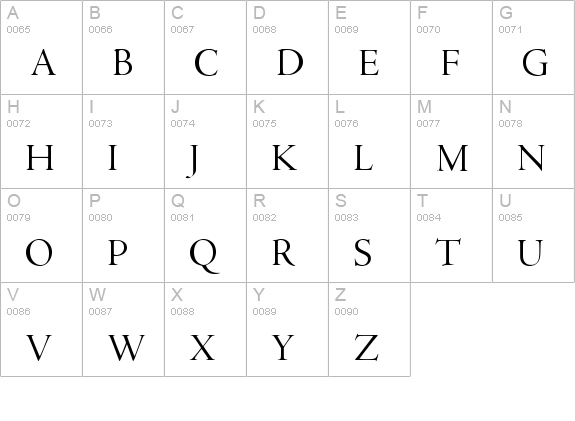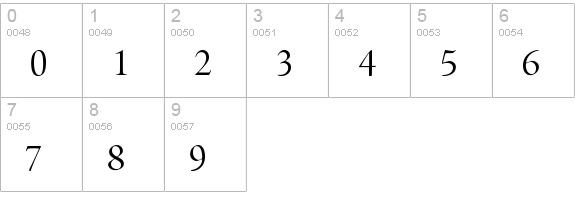
Adobe Jenson Pro Display Font Details
Adobe Jenson Pro Display font is a classic and elegant typeface designed for stunning display use. With its timeless serifs and refined letterforms, this font exudes sophistication and professionalism. Perfect for headlines, titles, and other large text applications, Adobe Jenson Pro Display commands attention and adds a touch of luxury to any design project. The best part? Adobe Jenson Pro Display font is available for free download at FontsMarket.com. Now you can elevate your designs with this premium typeface without breaking the bank. Don't miss out on the opportunity to enhance your projects with the beauty and versatility of Adobe Jenson Pro Display font. Download it today and see the difference it can make in your design work.